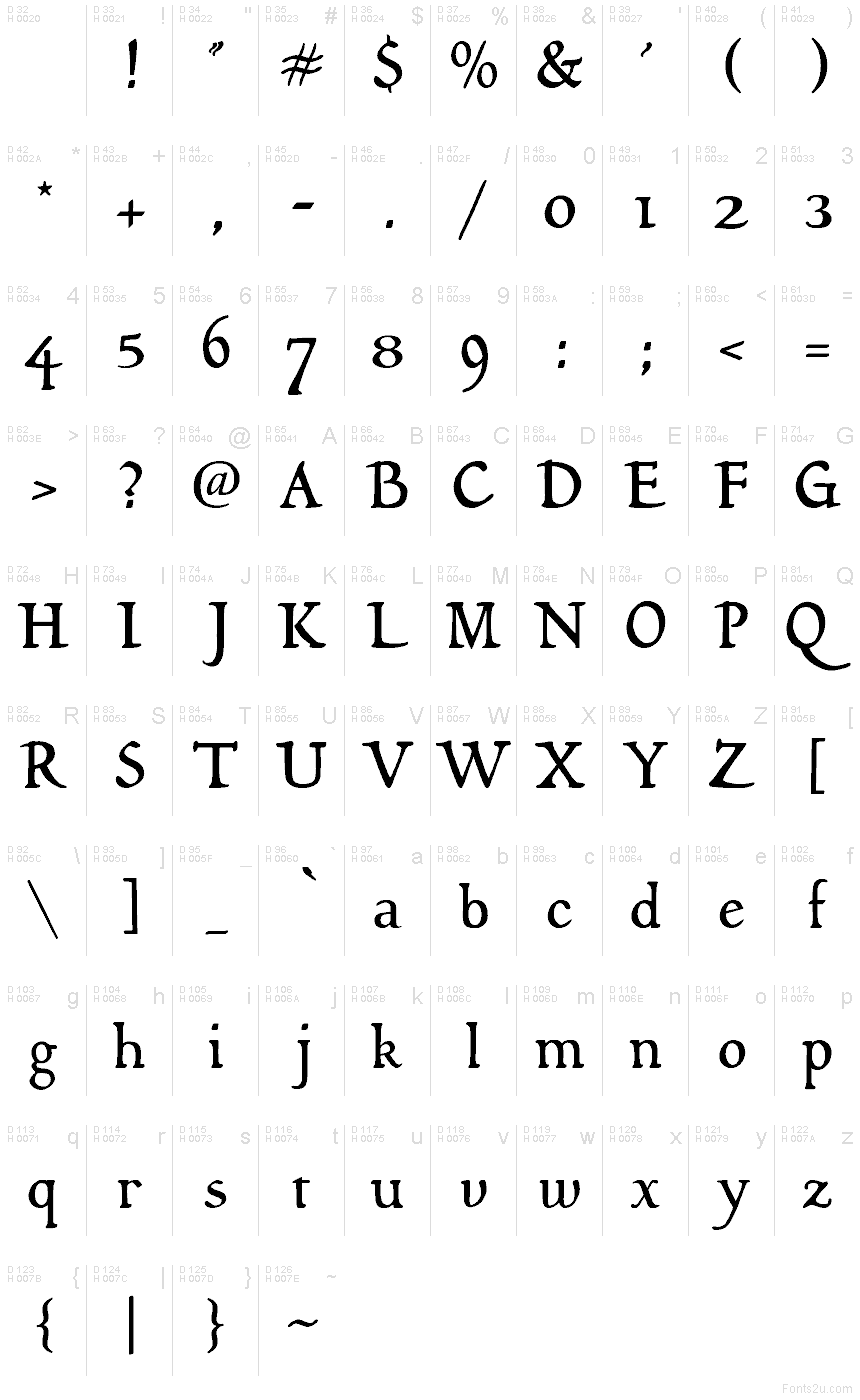
LDR Siniscalchi
LDR Siniscalchi font by Luigi Della Rosa is a free vintage serif typeface. Its carved, inky letterforms feel hand-set, with slightly irregular edges and taut curves that suggest old wood type pulled from a press drawer. The result is a serif that breathes history without looking dusty—rich, tactile, and instantly memorable.
Using LDR Siniscalchi, headlines snap with personality while body snippets carry a gentle, bookish warmth. It shines on wine labels, heritage branding, poster titles, boutique packaging, museum signage, and editorial intros. For balance, pair this free font with a clean grotesque sans, and set it a touch larger with generous letterspacing to let those sculpted details glow.